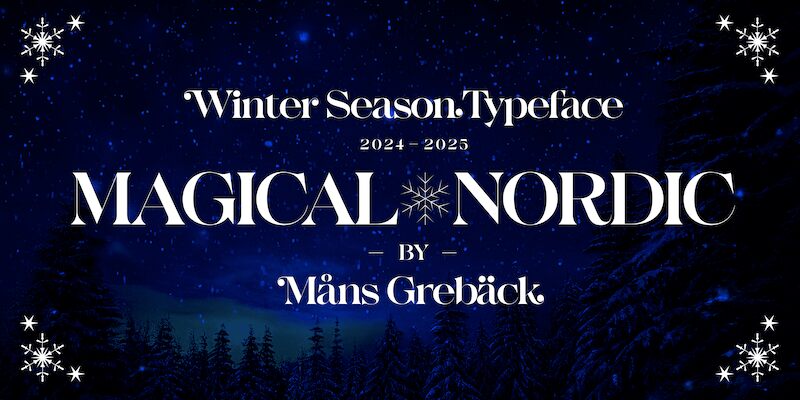
Magical Nordic Symbols PERSON Regular
Magical Nordic Symbols font by Mans Greback is a meticulously crafted dingbats font filled with festive and decorative symbols. This free font presents an array of ornamental elements inspired by Nordic themes, offering a whimsical yet sophisticated aesthetic for users to explore.
Use it for designing unique logos, book covers, movie posters, greeting cards, product packaging, gift wrapping paper, interior design catalogs, newsletters or magazine covers. Other uses include advertising campaigns related to fashion and elegance or branding projects within the beauty industry.
You can use one or multiple asterisks (*) to create snowflakes and stars.
Example: XMAS*****GIFT